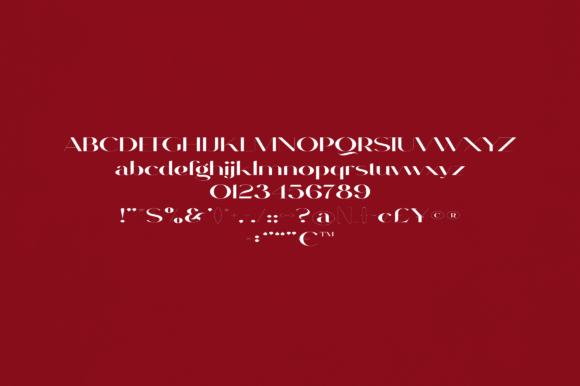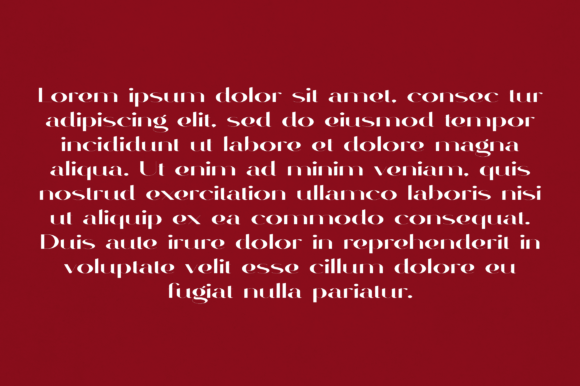
Introducing Calla Font: Elevate Your Typography with Elegance and Versatility
Are you tired of using the same old fonts for your design projects? Look no further than Calla Font, a stunning and versatile typeface that will take your typography to the next level. With its elegant and refined aesthetic, Calla Font is perfect for designers and crafters looking to add a touch of sophistication to their work.
What Makes Calla Font So Special?
Calla Font is an elegant and versatile font that will make your typography truly unique. Its refined and sophisticated aesthetic makes it perfect for a wide range of design projects, from logos and branding to headlines and plain text. Whether you’re working on a branding project, home-ware design, product packaging, or magazine header, Calla Font is sure to enchant your audience.
As a designer or crafter, you know how important it is to have a font that can adapt to different styles and themes. Calla Font is perfect for:
- Branding projects: Create a lasting impression with Calla Font’s elegant and sophisticated aesthetic.
- Home-ware designs: Add a touch of luxury to your home-ware designs with Calla Font’s refined and classic look.
- Product packaging: Make your product stand out on store shelves with Calla Font’s unique and eye-catching style.
- Magazine headers: Create stunning magazine headers that will grab the attention of your readers.
- Text overlays: Use Calla Font as a stylish text overlay to add depth and interest to any background image.
Key Features of Calla Font
So, what makes Calla Font so special? Here are just a few of its key features:
- Elegant and refined aesthetic: Calla Font has a sophisticated and luxurious look that’s perfect for high-end designs.
- Versatile: Calla Font can be used for a wide range of design projects, from logos and branding to headlines and plain text.
- Unique: Calla Font’s distinctive style will set your design apart from the crowd.
- Easy to read: Despite its elegant aesthetic, Calla Font is easy to read, making it perfect for body text and headlines.
How to Use Calla Font in Your Designs